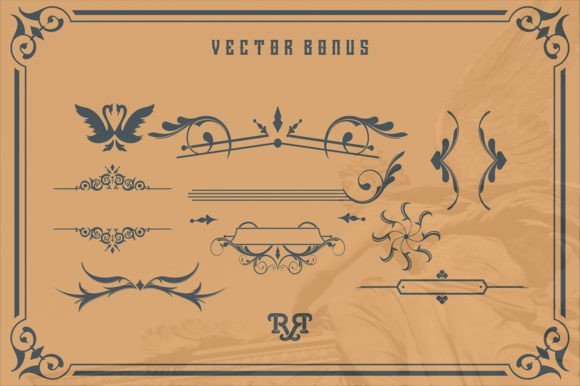
Black letter Font / FontsTop Trend Aseina Font Collection 26/02/202527/02/2025 - by Awais Farooq Aseina is a gothic-style blackletter font. This distinct and imposing font will make each of your creations look outstanding. Add it confidently to your projects and you will love the outcome. Related Posts:The Trending Love Bubble FontNostalgic Font and Label CollectionThe Mariam Story Font downloadThe Eighties Comeback Serif (70 fonts) DownloadTri-Bottle Cosmetic Mockup CollectionThis is Bubble Rainbow FontThe Sweet Valentine FontTop Paper Bag Mockup Set DownloadThis is Grandma FontCosmetic Packaging Mockup Scenes Part 5 DownloadThe Chocolate Box Mockup Bundle Vol 2 DownloadGaming Laptop Mockup DownloadThe Wonderful Christmas FontLaptop Screen Display MockupTop Photography Canva Website Template